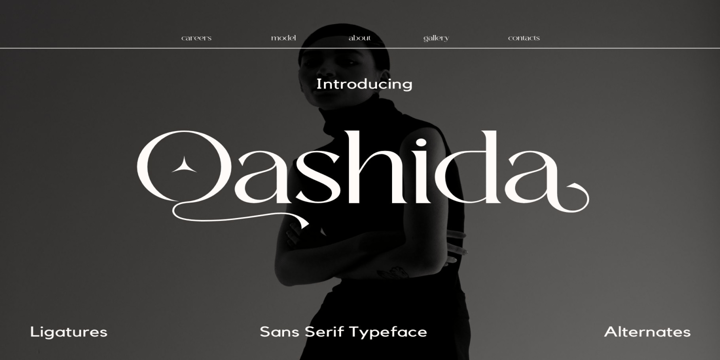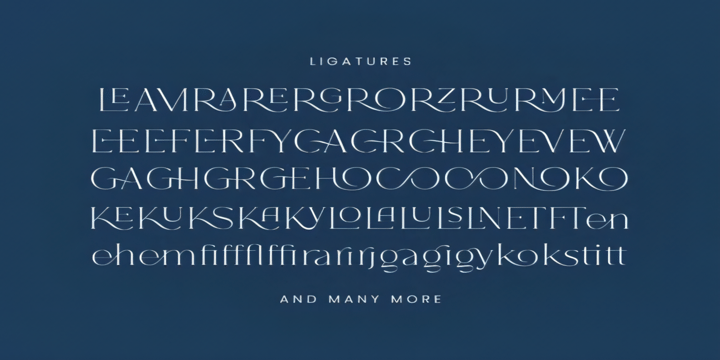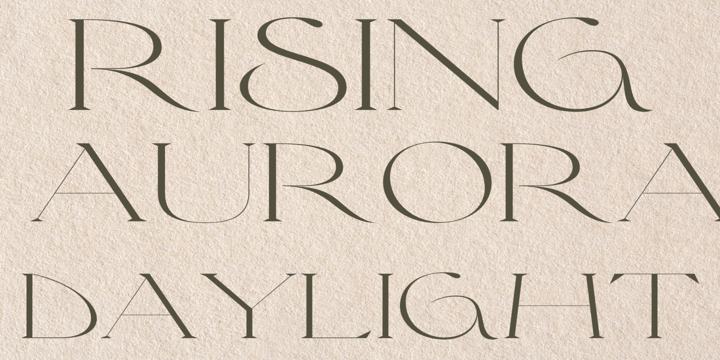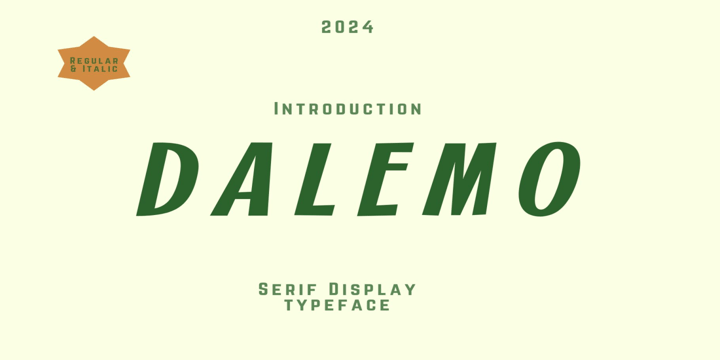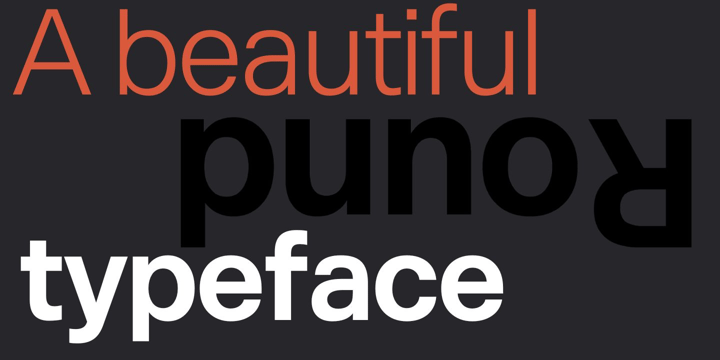
Premium Classic Collection
Premium classic collections fonts
Whether you're designing for fashion, food, culture, or storytelling, this bundle equips you with:
Serifs, sans, and stylistic alternates
Light, bold, decorative, and expressive styles
Balanced aesthetics from clean modernism to ornate tradition
Ideal for: Branding, magazines, posters, packaging, merch, digital banners, creative campaigns, and web UI.